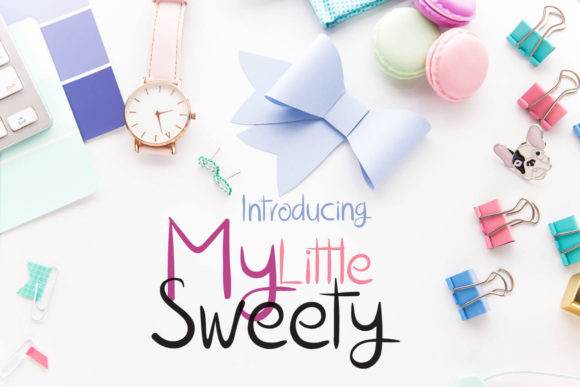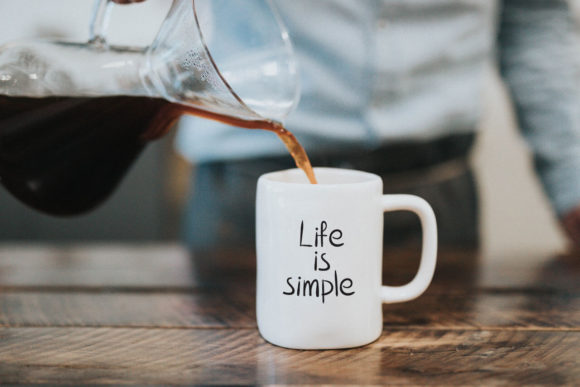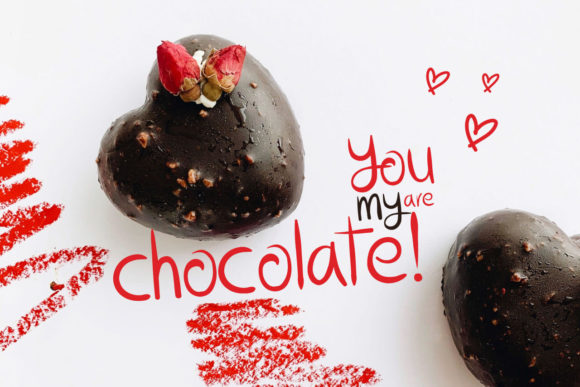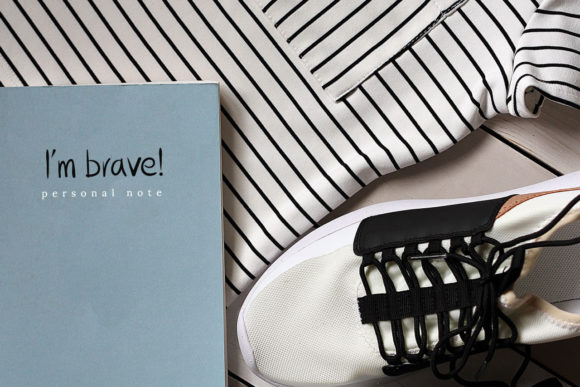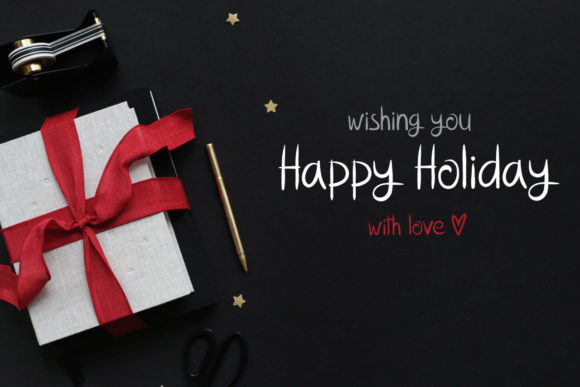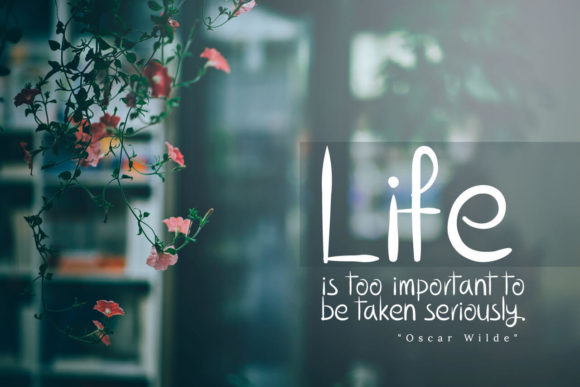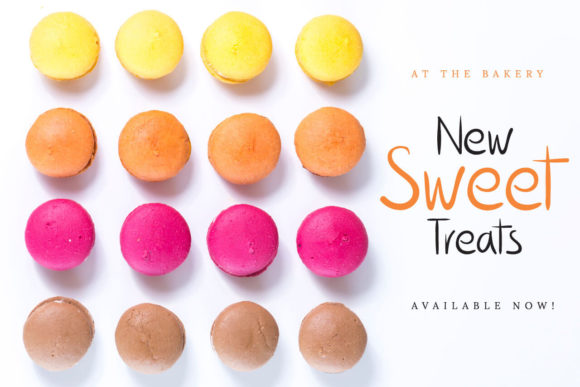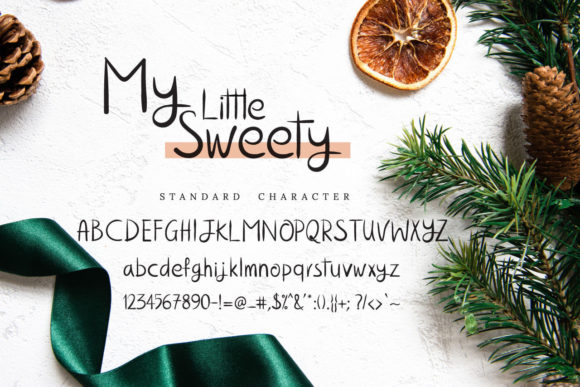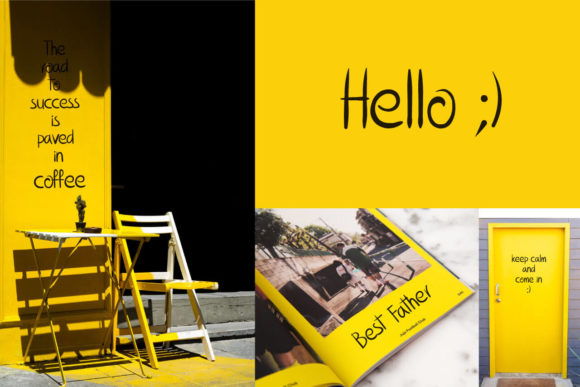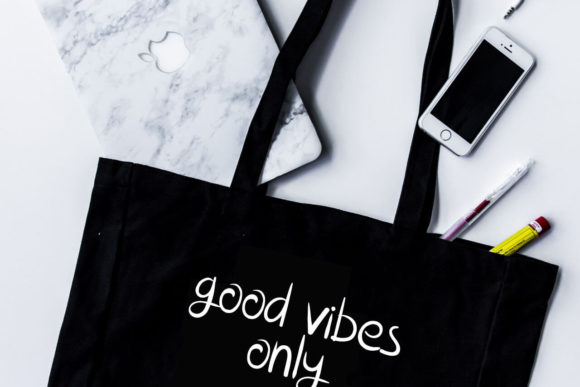
HomeScript FontsMy Little Sweety Font Script Fonts My Little Sweety Font FacebookXPinterestWhatsApp My Little Sweety Font Poster 2 My Little Sweety Font Poster 3 My Little Sweety Font Poster 4 My Little Sweety Font Poster 5 My Little Sweety Font Poster 6 My Little Sweety Font Poster 7 My Little Sweety Font Poster 8 My Little Sweety Font Poster 9 My Little Sweety Font Poster 10 About My Little Sweety Font My Little Sweety is a cute hand-drawn script style font. It is perfect to make extra sweet design projects! DOWNLOAD NOW People also explored Eneba Font First Donut Amtyara Script Font Hidden Love Font Jingle Bells Font Metro Millenium Font Sunday Christmas Font Milthen Font Simple Life Font 327 0 TagsMy Little Sweety Font Previous articleHellomy FontNext articleVilona Font LEAVE A REPLY Cancel reply Comment: Please enter your comment! Name:* Please enter your name here Email:* You have entered an incorrect email address! Please enter your email address here Website: Save my name, email, and website in this browser for the next time I comment. Personal Use Free Kitchen Blue Personal Use Free Read more about this font Covelia Personal Use Free Read more about this font Clarisa Script Personal Use Free Read more about this font Rafika Personal Use Free Read more about this font BLOG Best Fonts for T-Shirt Design – Top 2025 Picks In 2025, t-shirt design has become more than just fashion—it's a form of self-expression. Whether you're... Free Fonts Risk: Why Free Fonts Can Be Dangerous for Designers Modern Sans-Serif Fonts That Brands Love in 2025 Using Fonts in Digital Marketing: Tips to Strengthen Your Brand Identity